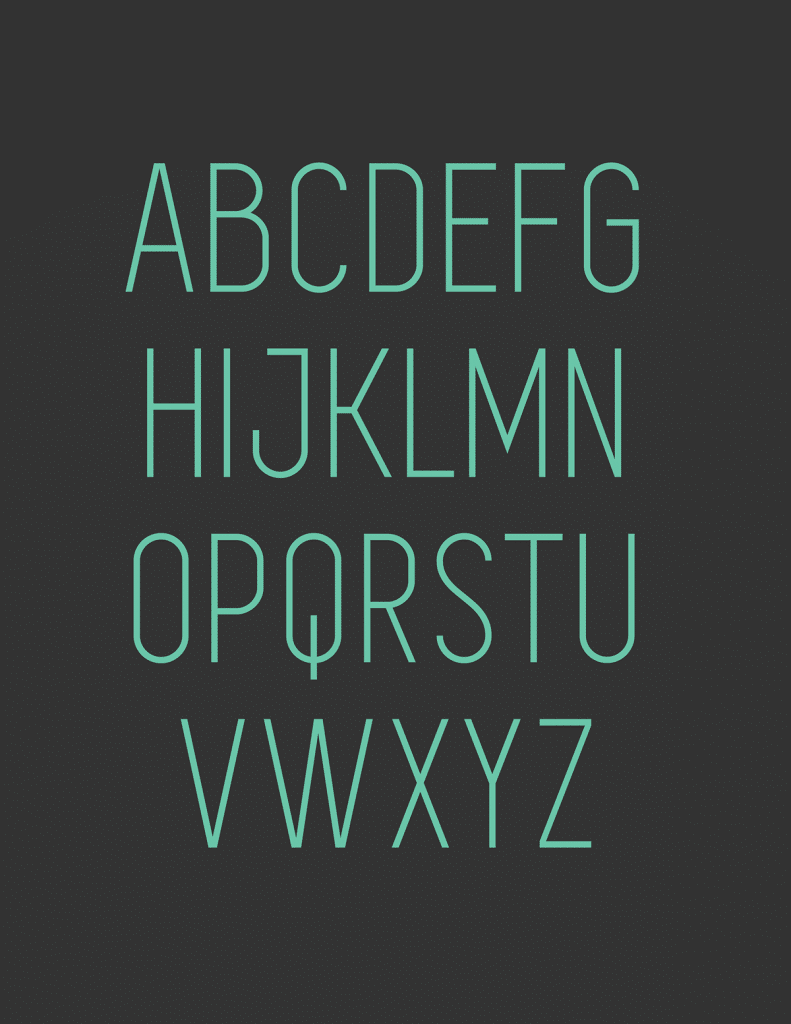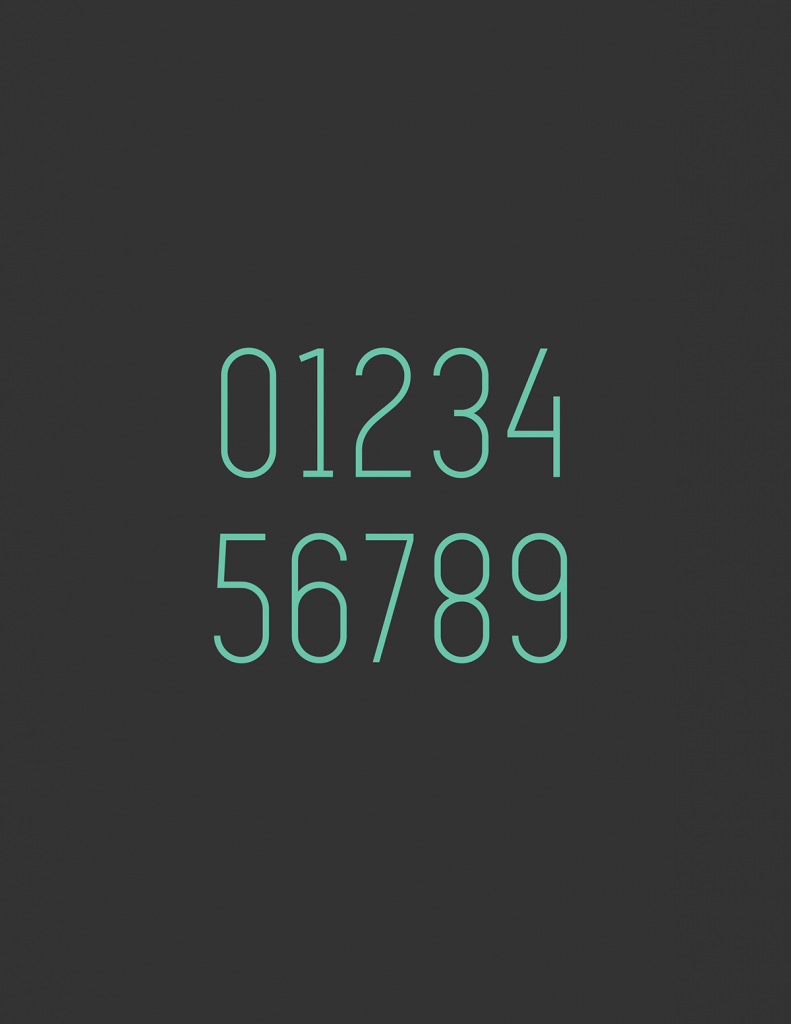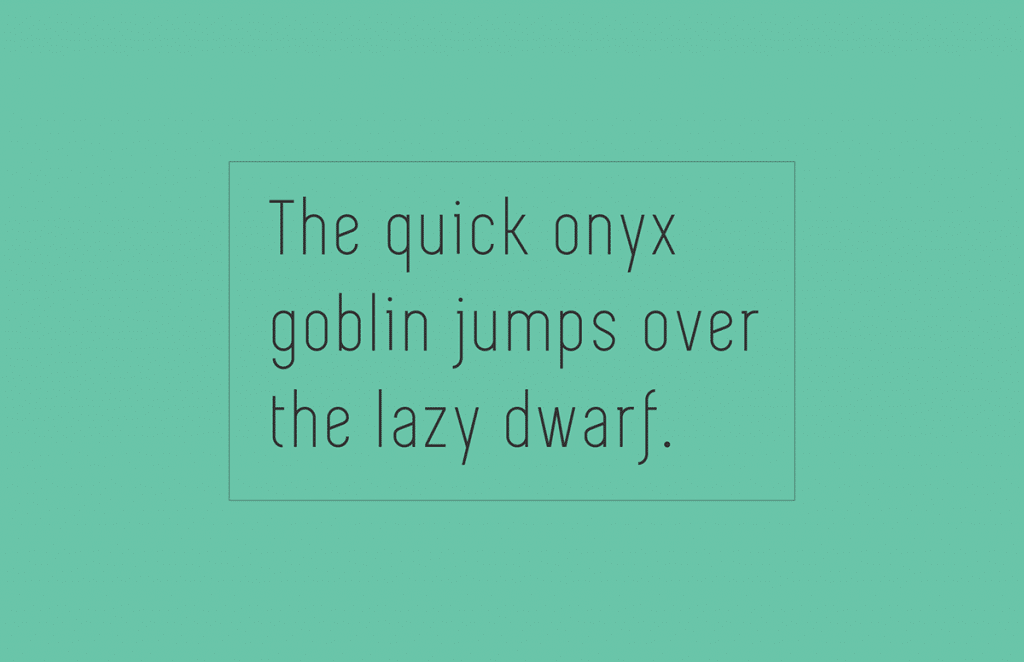
Free Font Friday: Simplifica
Our Free Font Friday series continues! For today’s font, I’d like to share Simplifica. This is an elegantly simple, clean, elongated san serif. The design has some subtle embellishment, like on the lowercase f, which adds style and interest. Well-balanced, thin and slightly condensed this font would be a good choice for an annual report, tech packaging project or architecture studio.
Simplifica Free Font